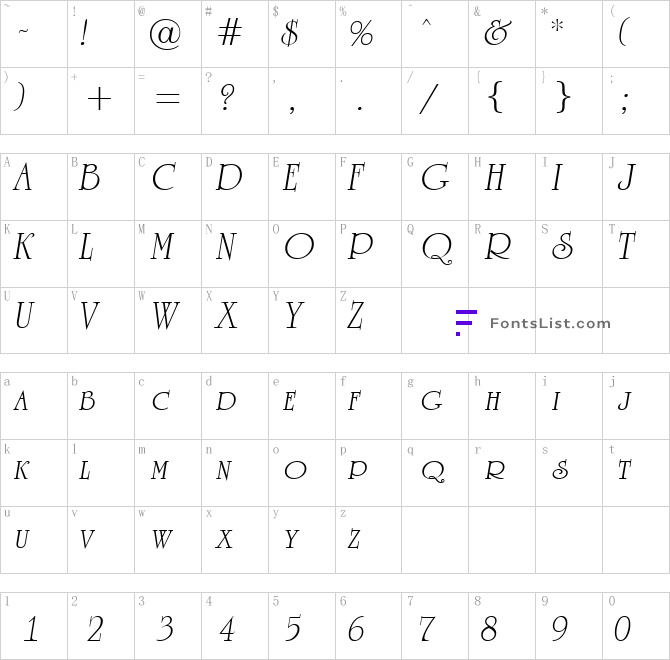
- Font Name:a_RomanusCps
- Subfamily:Macromedia Fontographer 4.1 a_RomanusCps Italic
- Full Name:a_RomanusCps Italic
- Weight:300
a_RomanusCps-Italic.ttf is a very beautiful artistic font, a_RomanusCps-Italic.ttf is widely used in the design and printing of various books and pictures,a_RomanusCps-Italic.ttf has a strong visual impact,a_RomanusCps-Italic.ttf is a commonly used font in newspapers, magazines and books, and is used in posters, e-commerce Poster design, store design, logo design, font design and other fields.a_RomanusCps-Italic.